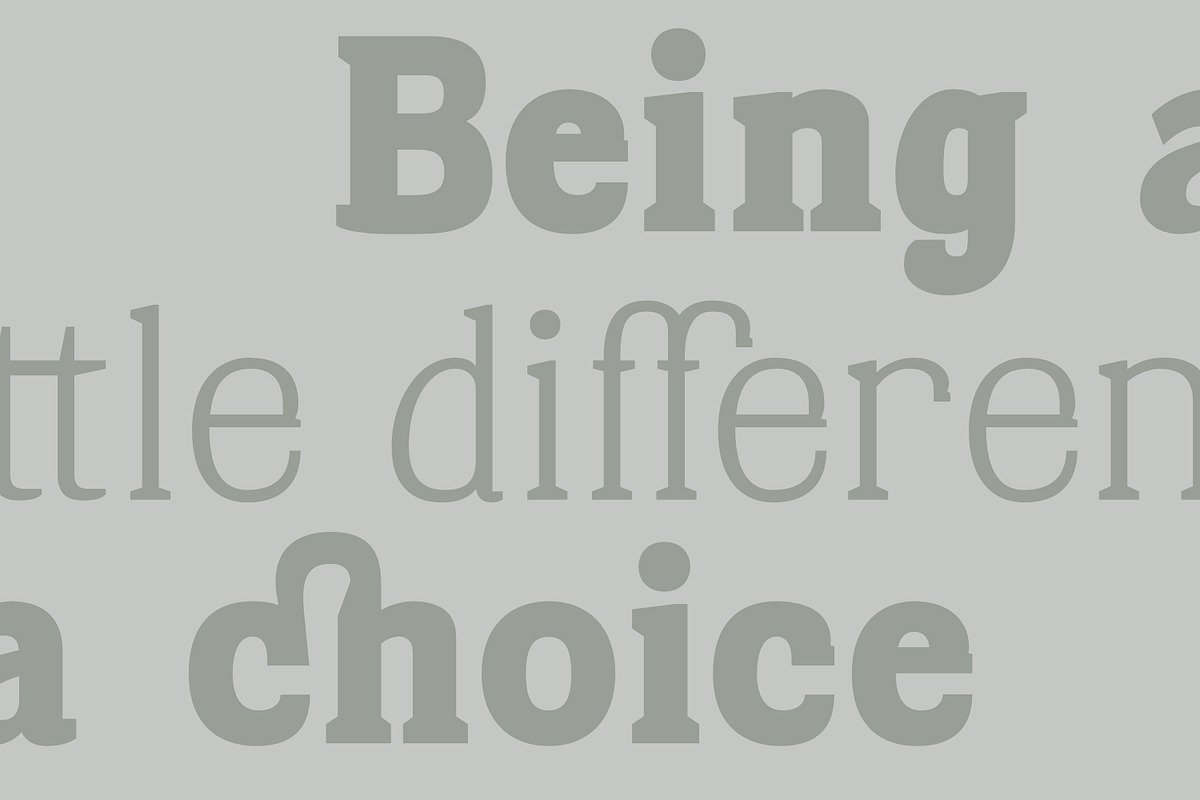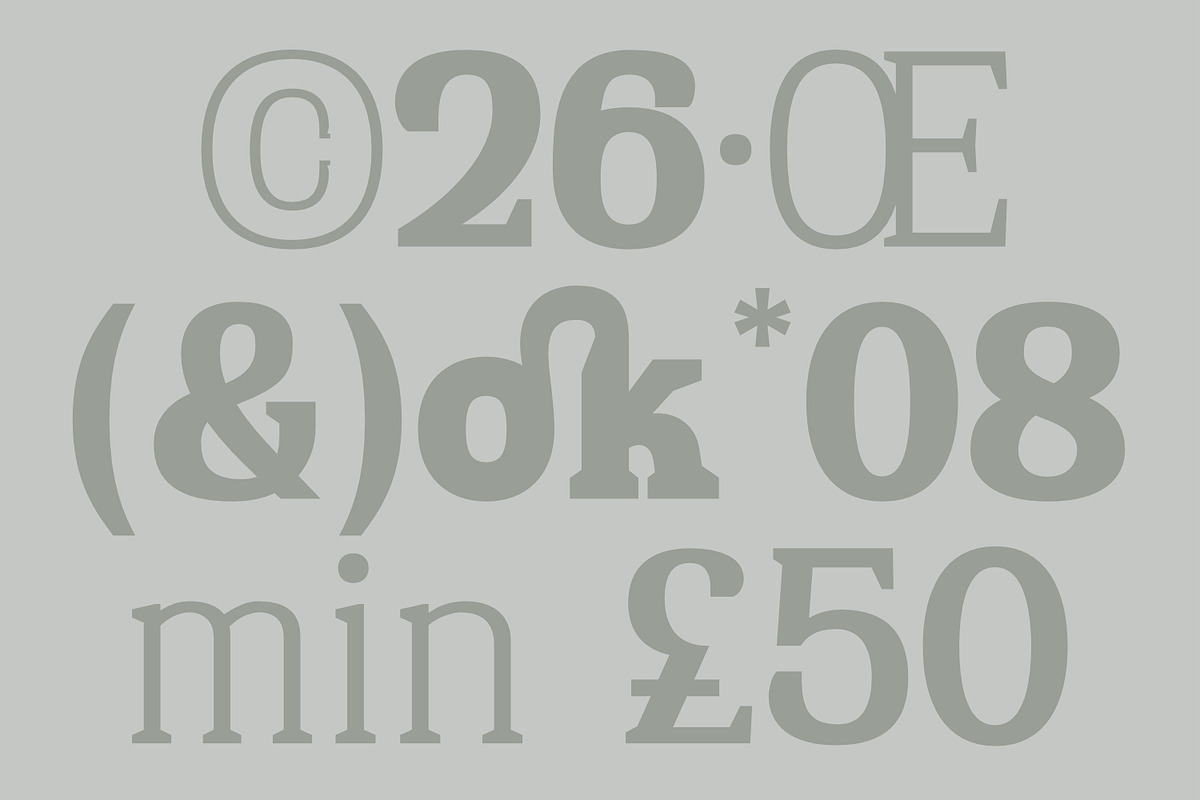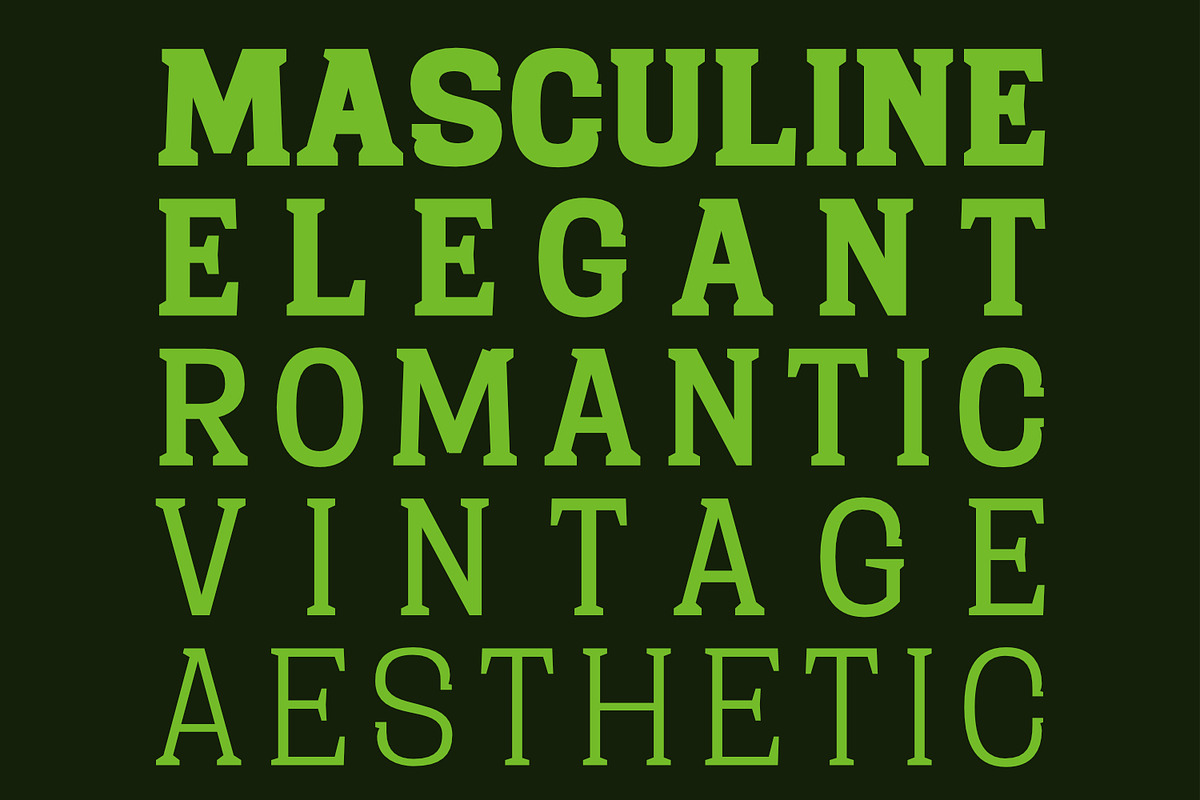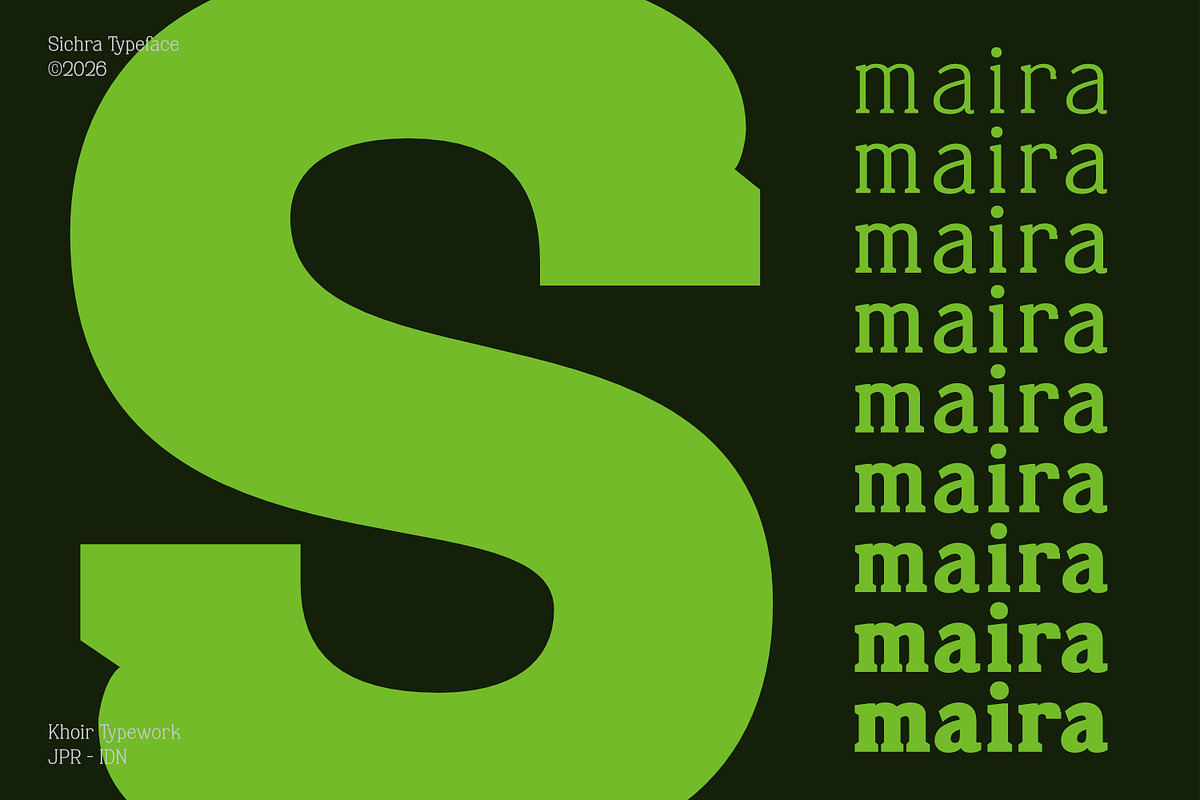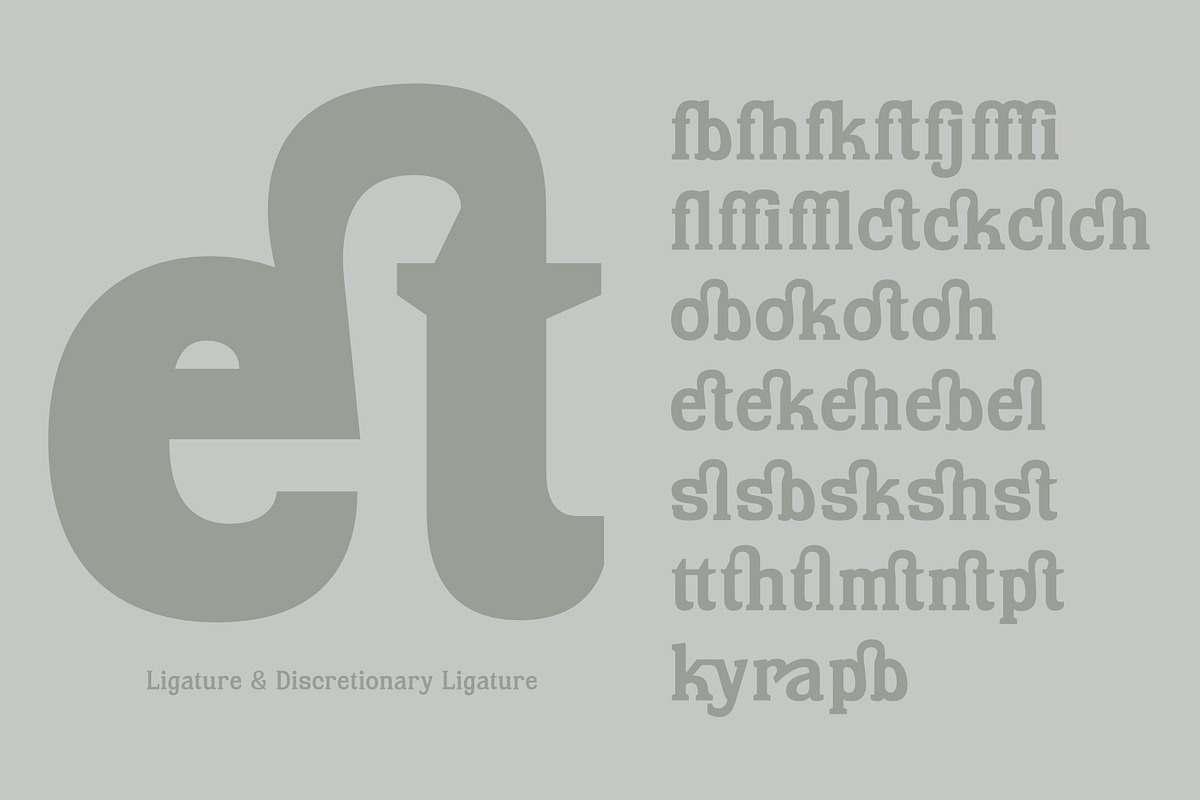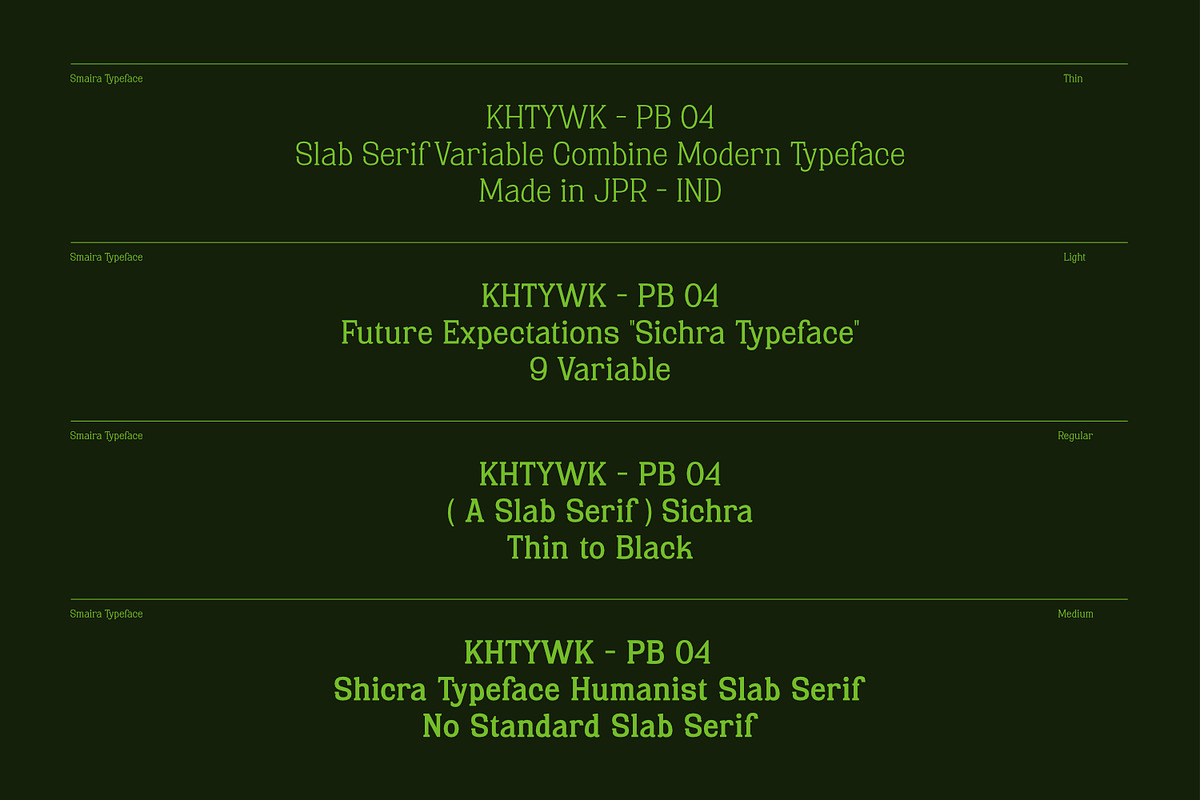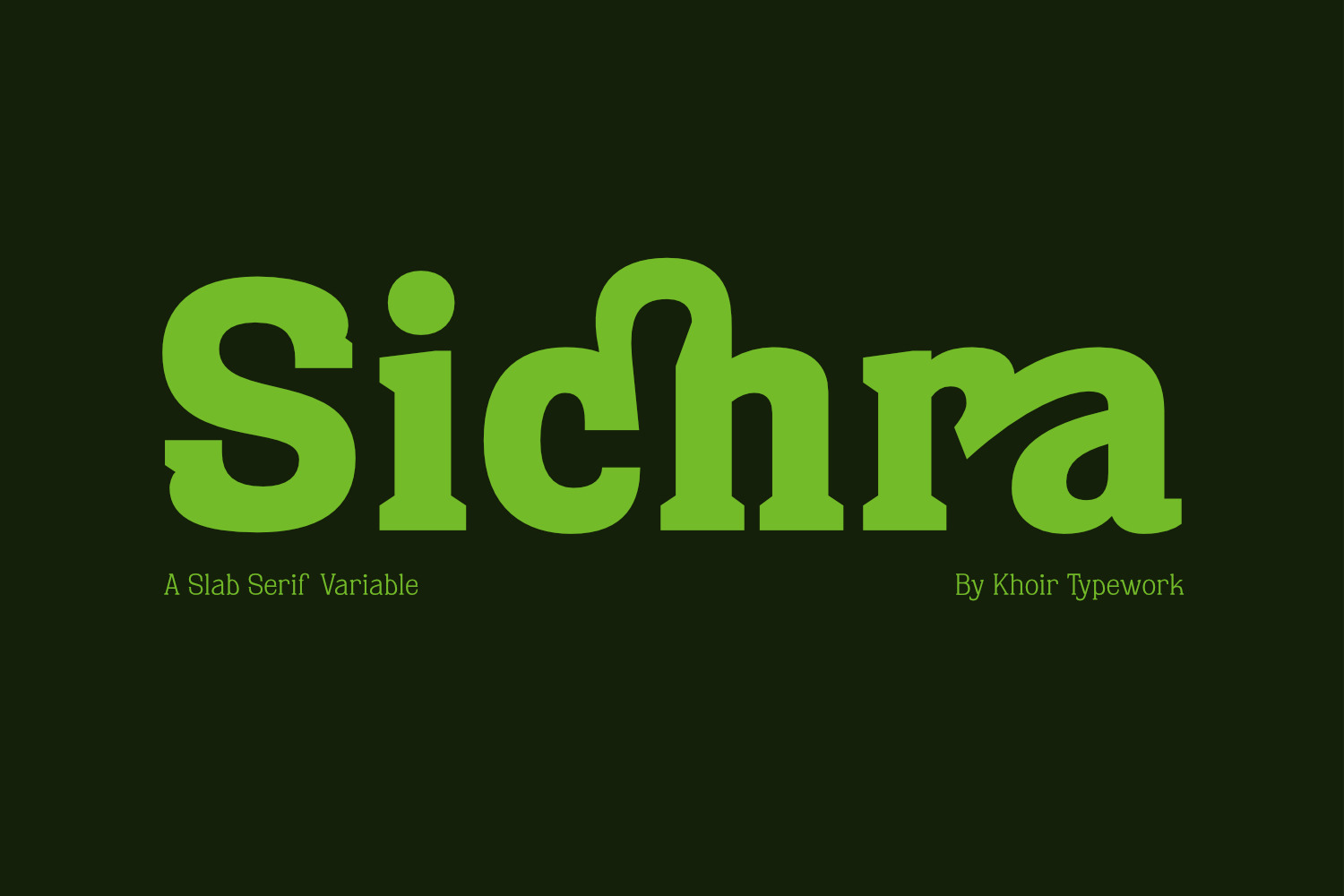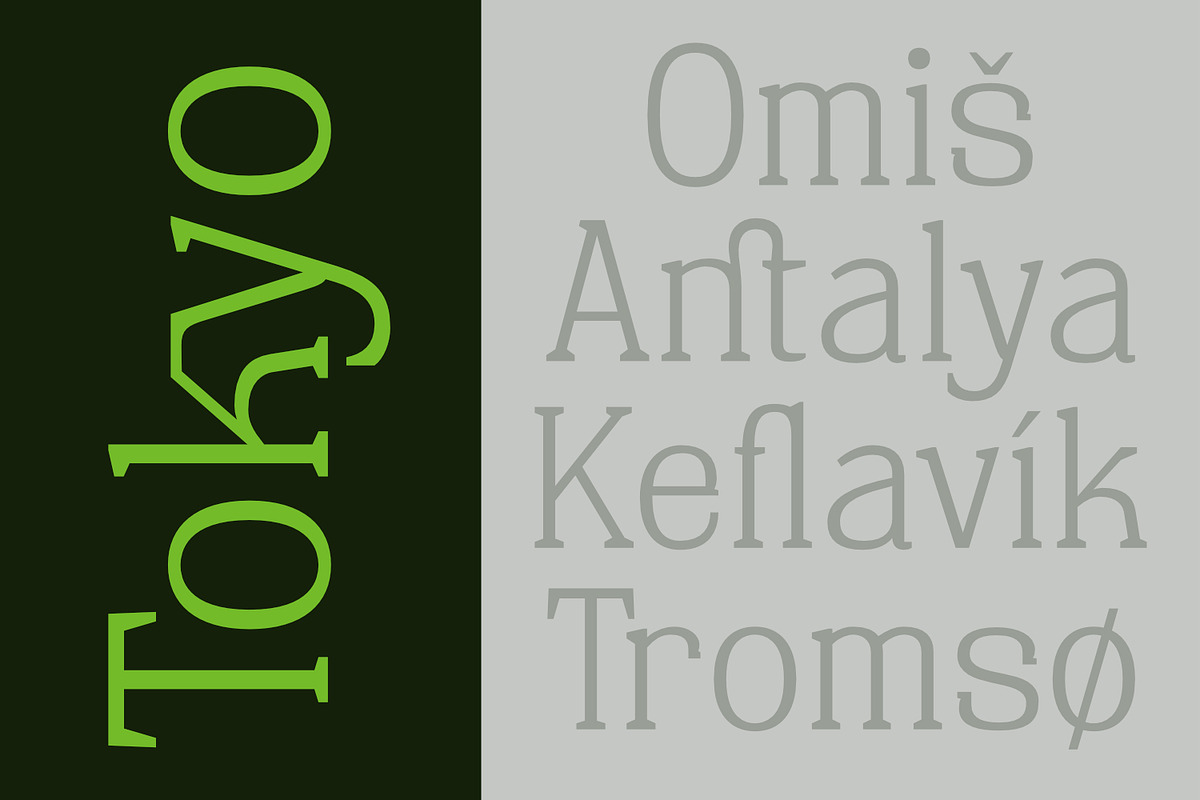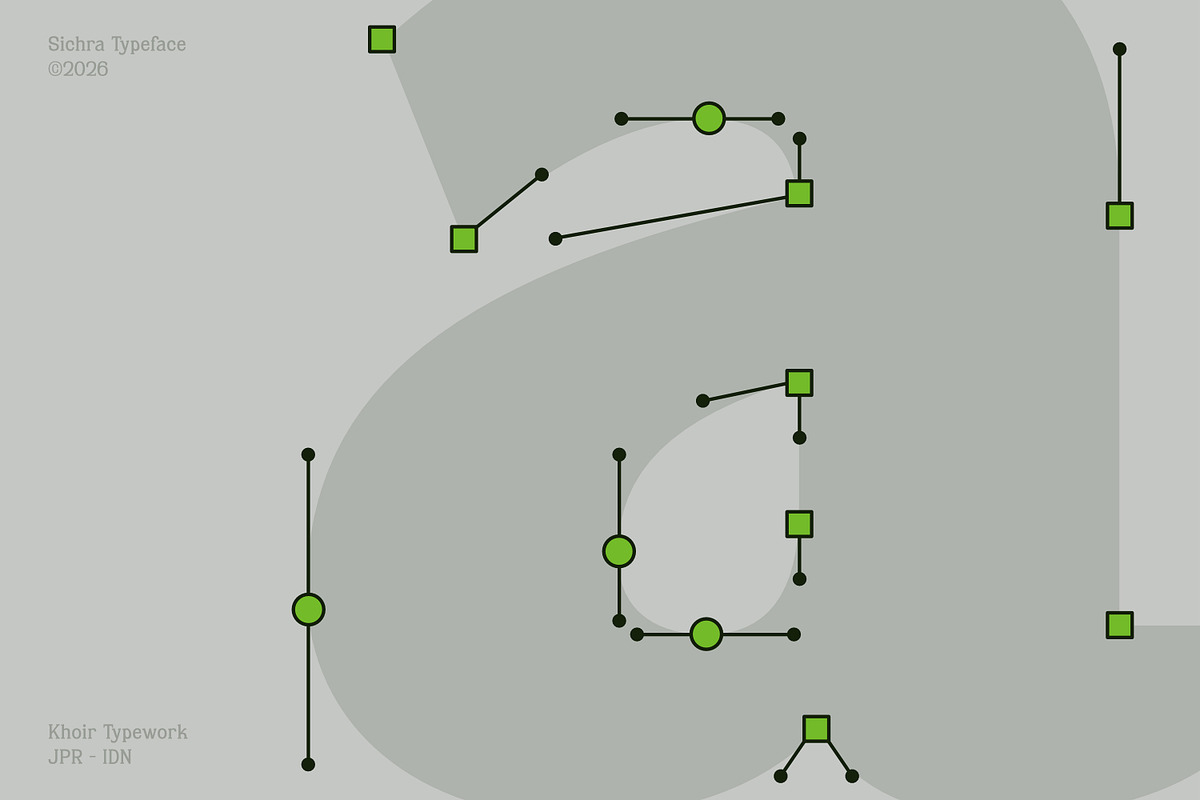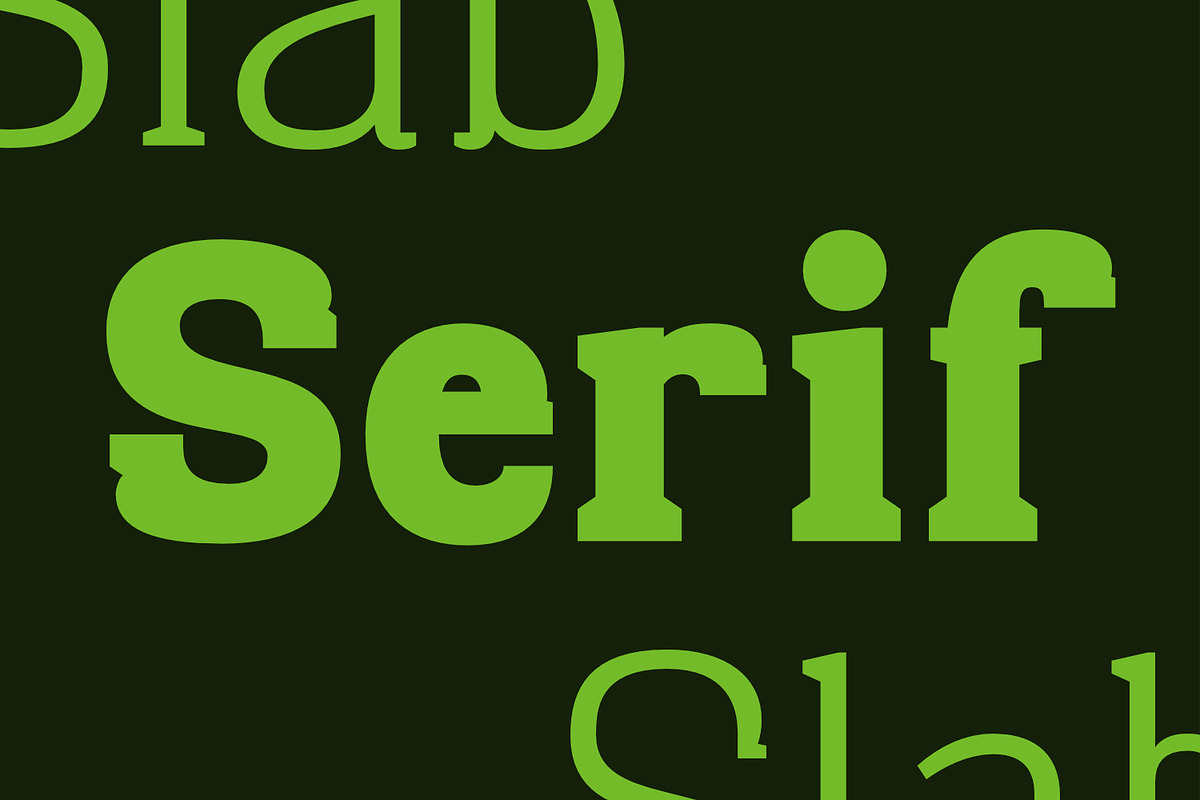
Sichra Typeface - Relaxed Slab Serif
Moving beyond the typical, rigid slab serif, we created the Sichra Typeface. It is designed for designers seeking a strong visual presence without the stiffness or harshness often associated with the genre; instead, it offers a relaxed, fluid quality that feels soft, calm, and pleasing to the eye. Yet, it retains the classic slab serif characteristics—legibility, sturdiness, and authority—while remaining approachable.
Sichra Typeface delivers a harmonious, stable, and consistent slab serif experience. We introduced new ligature variations to enhance this harmony, creating a look that is relaxed and visually comfortable. This makes the typeface ideal for a wide range of applications—from branding and editorial layouts to packaging and logo design—thanks to its beautiful ligature support. Ultimately, Sichra Typeface offers the flexibility and harmony required for projects that demand versatility and visual balance.
Typeface Features:
- 9 Font Weights—Thin, Extra Light, Light, Regular, Medium, Semibold, Bold, Extra Bold & Black (OTF + Variable Fonts)
- Extended Latin Character Set (supports 75+ languages)
- Standard + Optional Ligatures
- Punctuation & Symbols